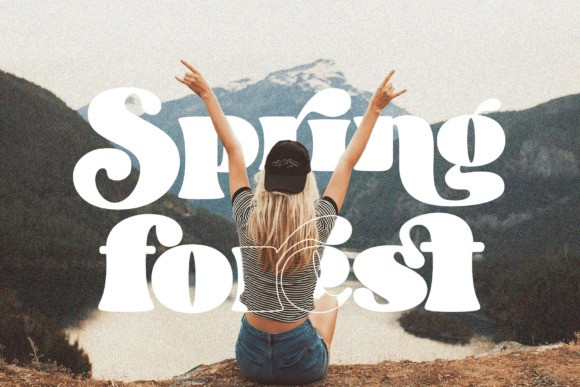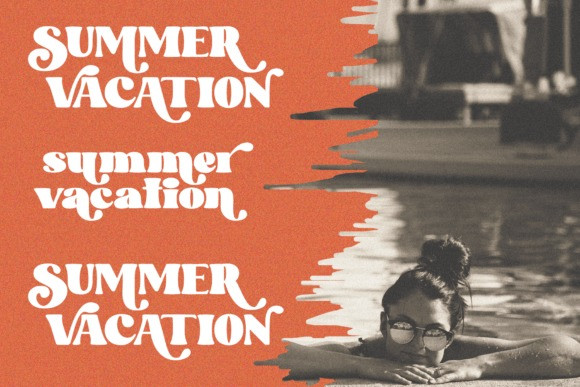
Winter Serif Font
Winter Serif Font is a bold serif display font that captures elegance, strength, and personality in every character. With its high contrast strokes and distinctive serifs, Winter is designed to make a lasting impression in headlines, logos, packaging, and editorial designs.
Crafted with meticulous attention to detail, this font comes fully equipped with OpenType features, including a rich set of alternates and ligatures that allow designers to create customized and expressive typography. Whether you’re working on luxury branding, magazine titles, or creative poster layouts, Winter provides the versatility and flair you need.